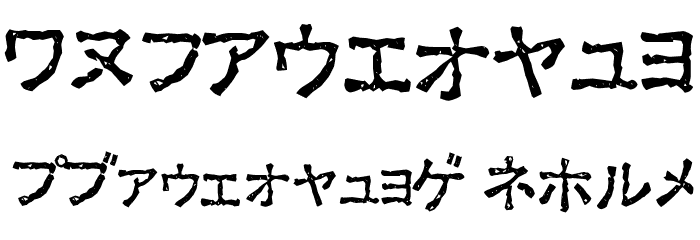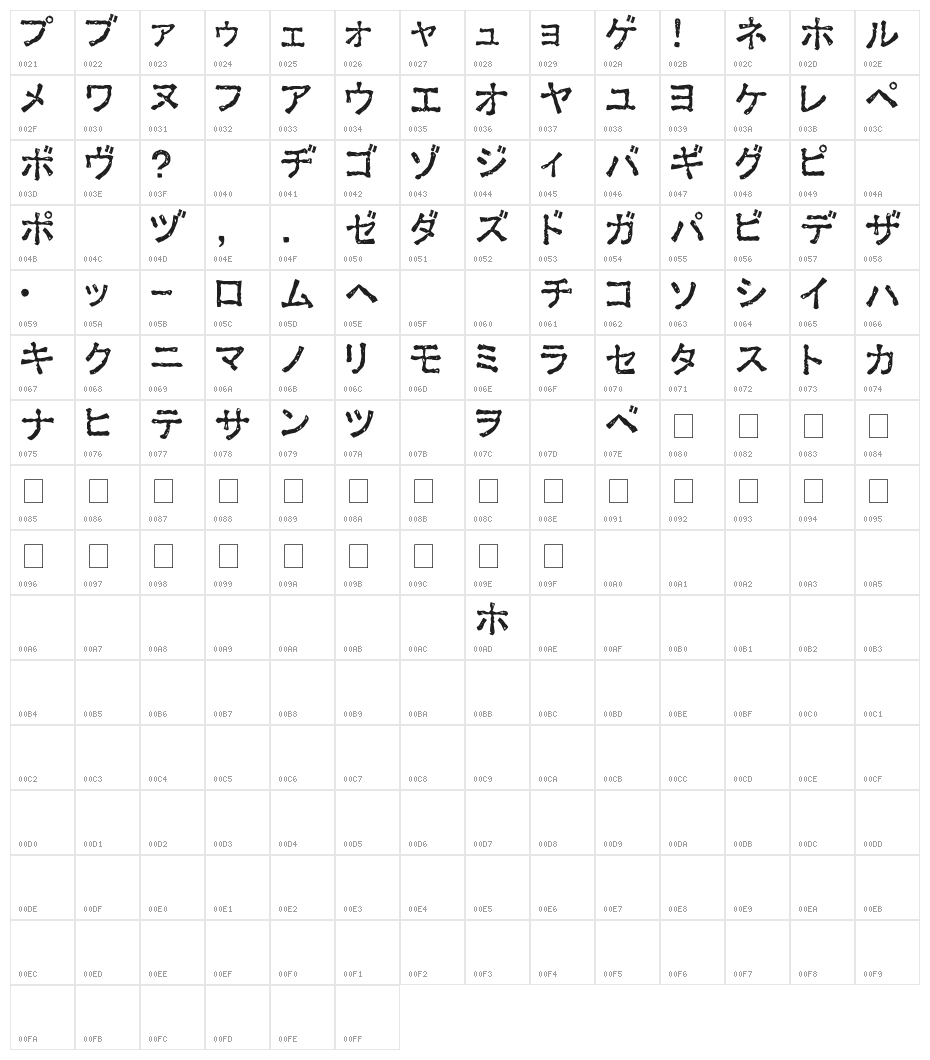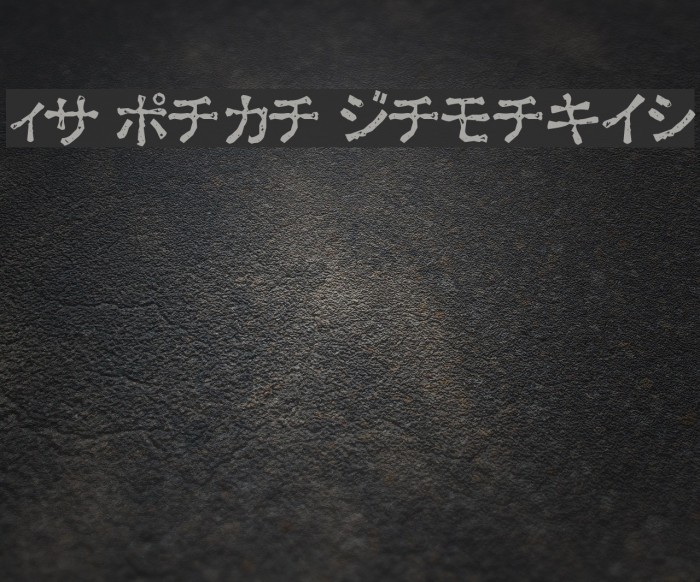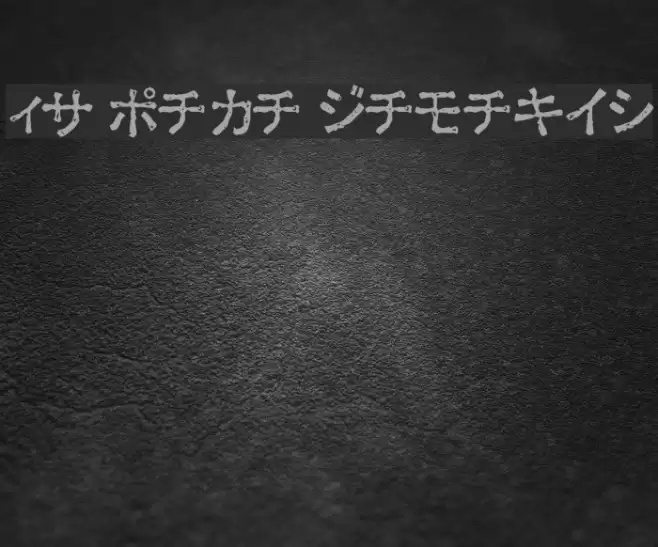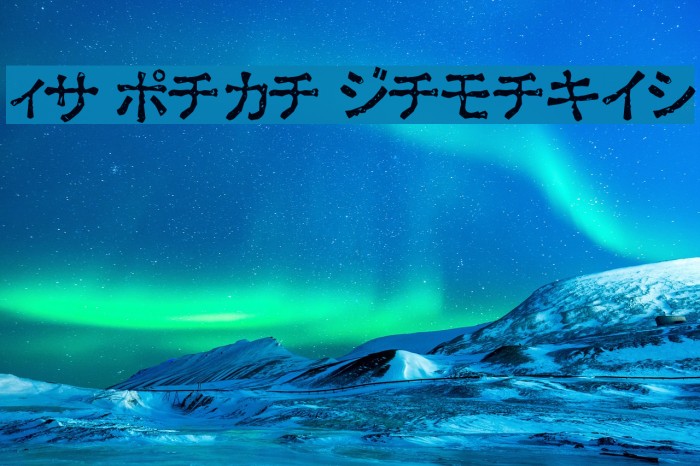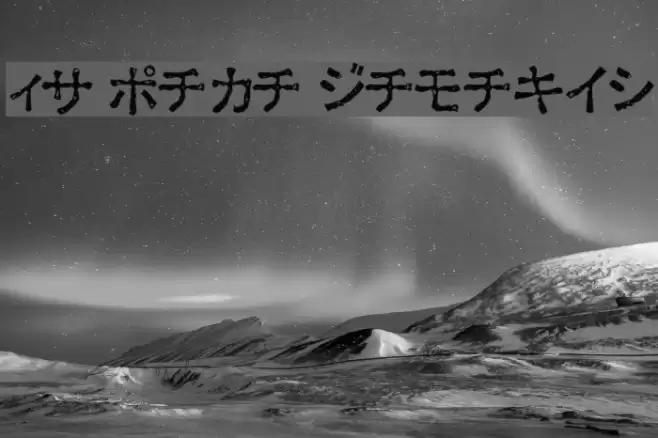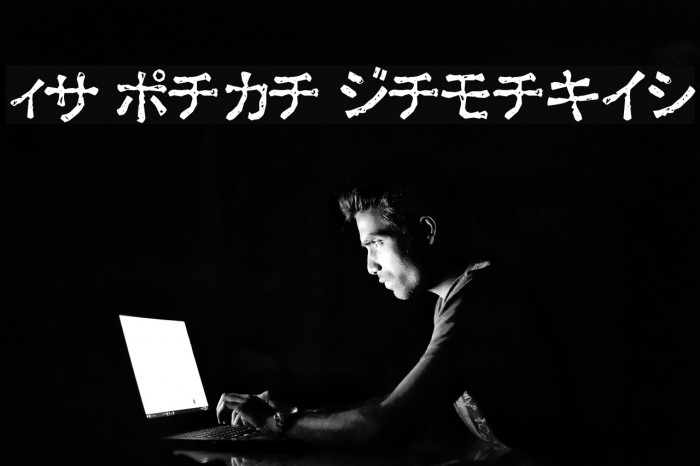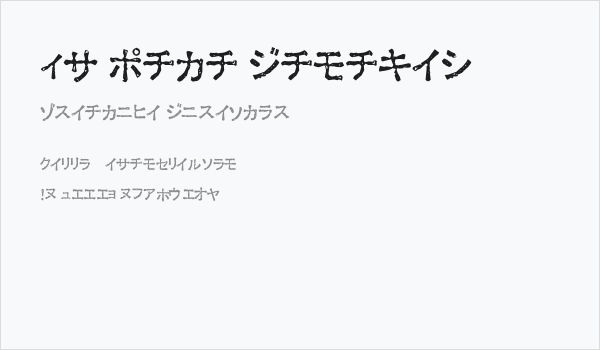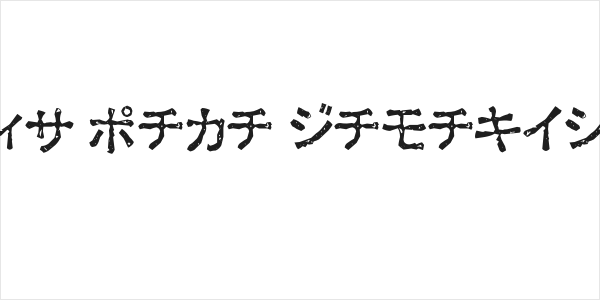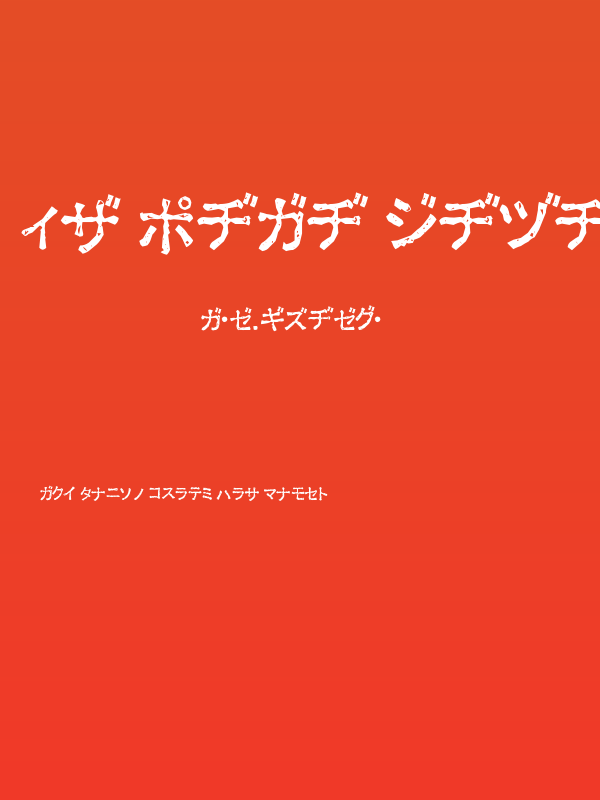
Ex Kata Damaged Font
Ex Kata Damaged Description
This font features a distressed, grunge style that gives the appearance of wear and tear, as if the characters have been eroded or damaged over time. The edges are rough and uneven, contributing to its rugged aesthetic. It maintains a bold presence with thick strokes, yet the irregularities in the letterforms add a unique character. The font's style is reminiscent of urban or industrial themes, making it suitable for projects that require a raw, edgy look. Despite its distressed appearance, the characters remain legible, ensuring that the text is still readable while conveying a strong visual impact.
| Overall Style | Grunge, Urban, Distressed |
| Proposed Projects | Ideal for album covers, posters, streetwear branding, or any project needing an edgy, urban feel. |